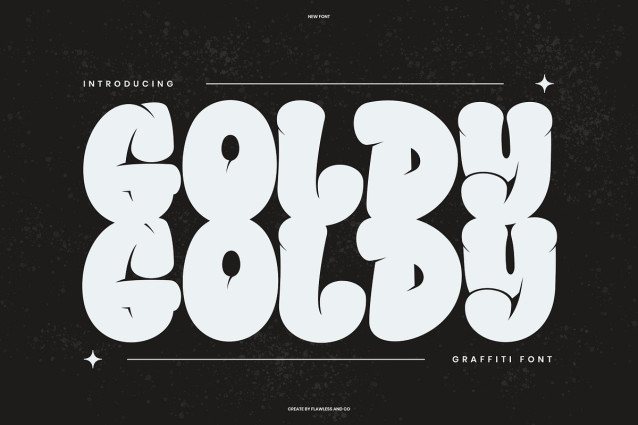
Goldy Display Font
Goldy Display Font is a fun and chunky graffiti-style font that bursts with energy and street-inspired flair. With its bold bubble shapes and dripping paint effects, GOLDY brings a playful, rebellious character to any design. This font is designed to stand out and grab attention—perfect for youthful and edgy projects that want to break the rules. Whether you’re working on urban posters, music covers, apparel, sticker designs, or streetwear branding, GOLDY adds an expressive, hand-drawn feel that makes your message pop. Each letter is packed with attitude and style, making it a top choice for designers who want to create something loud, fun, and unforgettable.